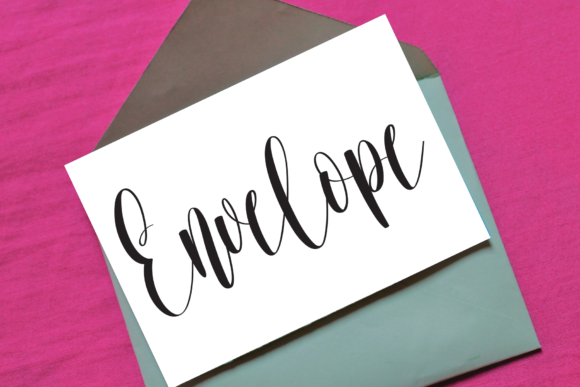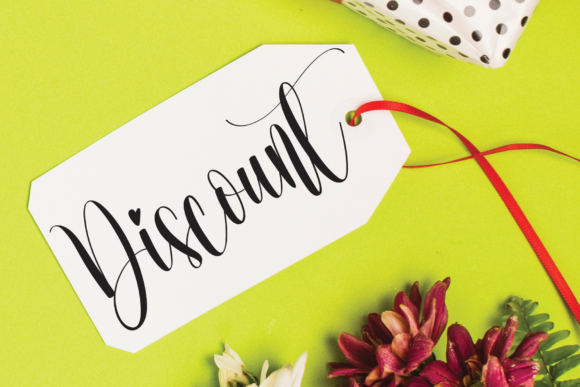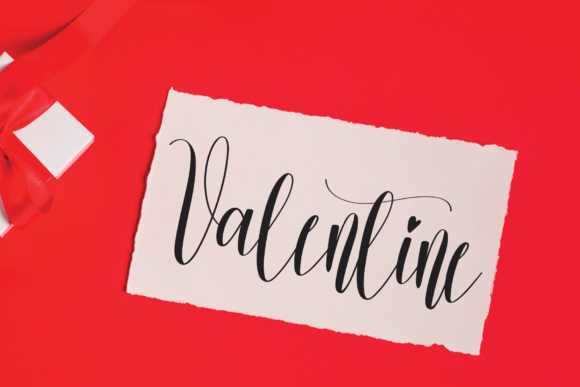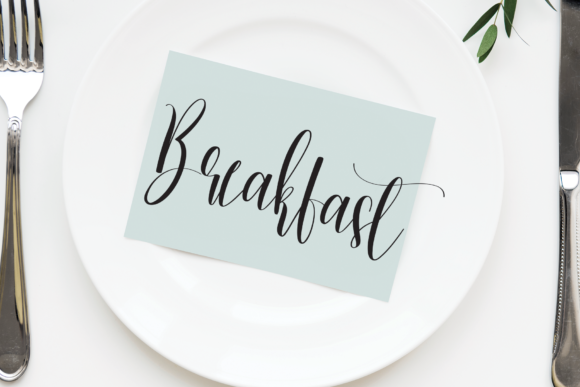
Homework Font
About Homework Font
Homework is a creative handwriting font that will look great on logo design, blog graphics, style quotes, wedding stationery, art prints, and packaging. You can also use it for social media, magazines, fashion, creative branding, editorial design, and web designing.